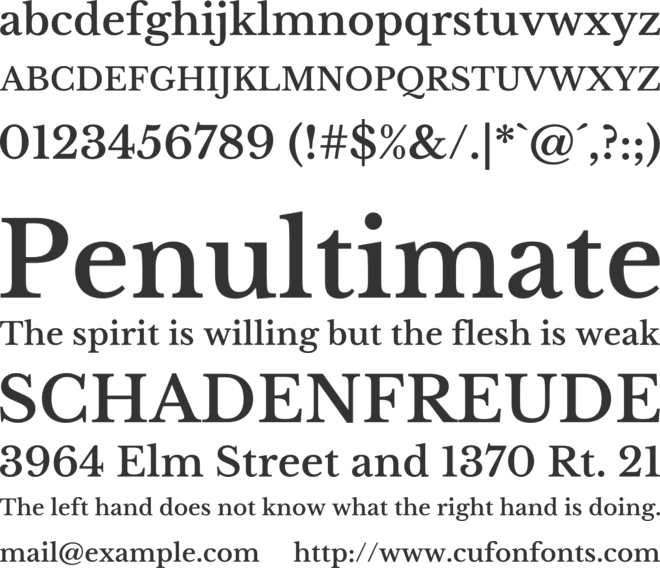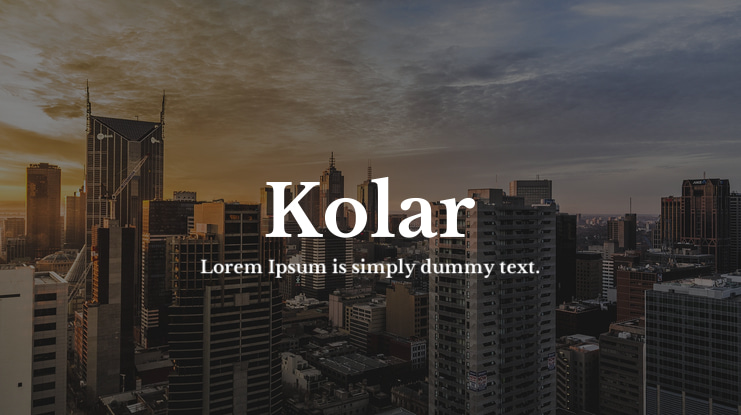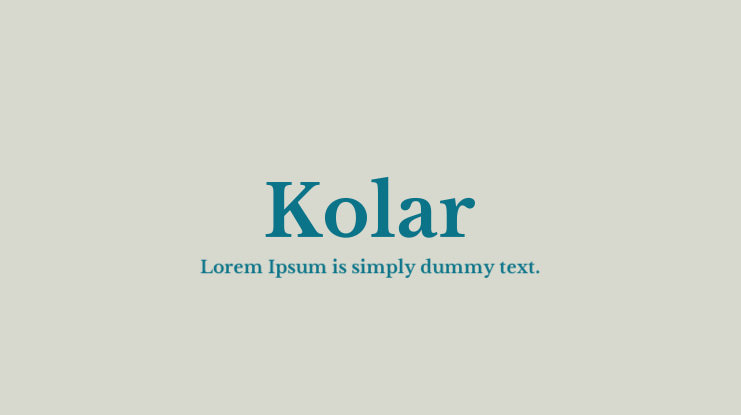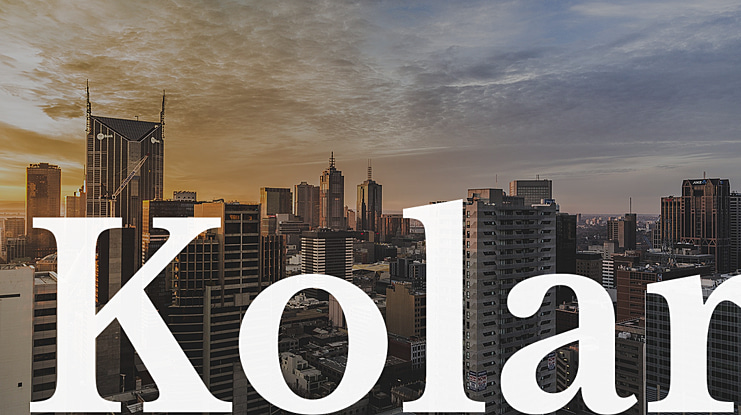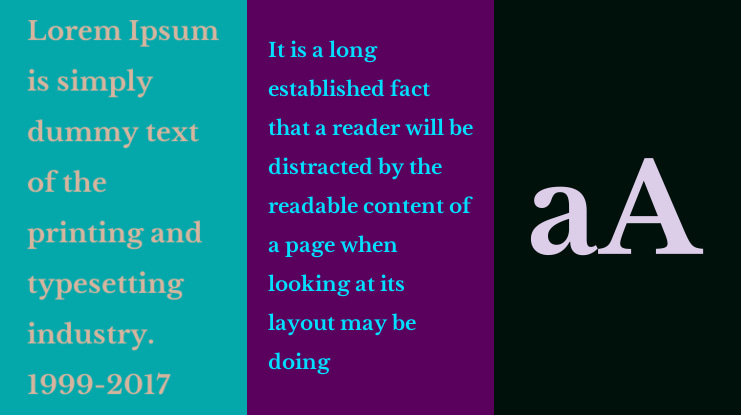
Kolar Font Family
Ramakrishna Saiteja (Kannada); Shiva Nallaperumal (Latin)
Kolar is a multi-script OpenSource family of typefaces intended to support the publishing of long texts for immersive reading written in Kannada or a language that uses the Latin script. Five fonts are available: Light, Regular, Medium, SemiBold, and Bold. Each font’s character set includes 925 glyphs. This massive range supports hundreds of unique Kannada-script conjuncts.
Kolar’s Latin-script characters are all modified from Pablo Impallari’s Libre Baskerville series. Those fonts were optimised for 16px-high web body text; Kolar’s Kannada characters follow the irlead. Libre Baskerville is an excellent match for the Kannada script, because – like John Baskerville’s 18th century type – typographically-formed letters for Kannada text are almost always drawn with a high amount of vertical contrast. The horizontal elements along the bottoms of the letters in Kolar are very heavy, as may be expected.